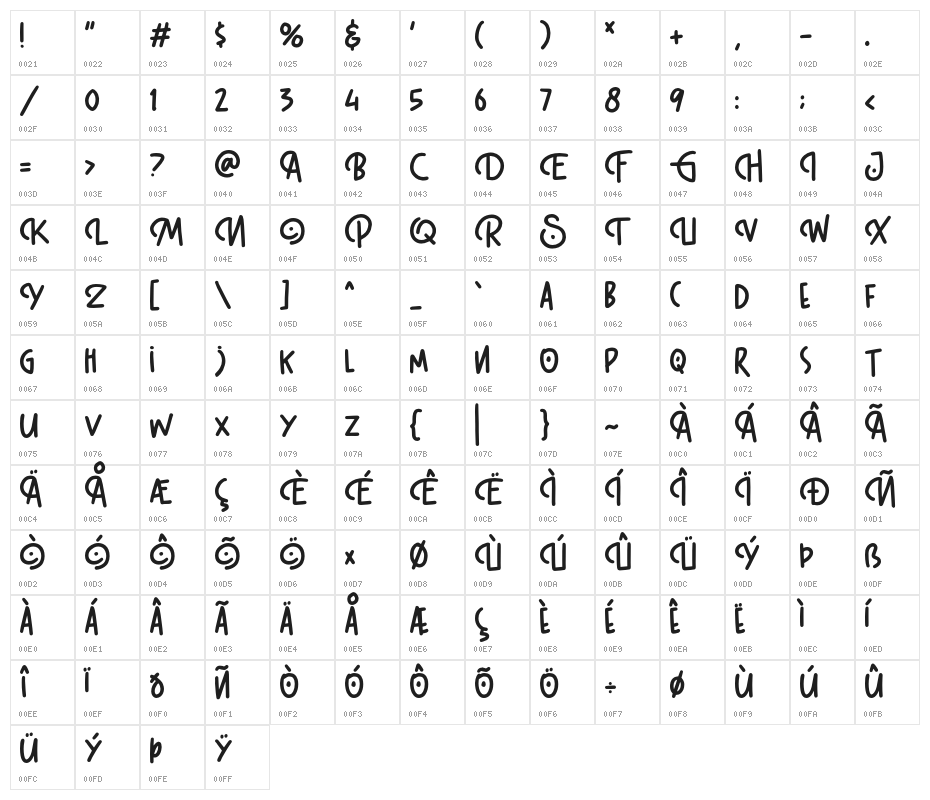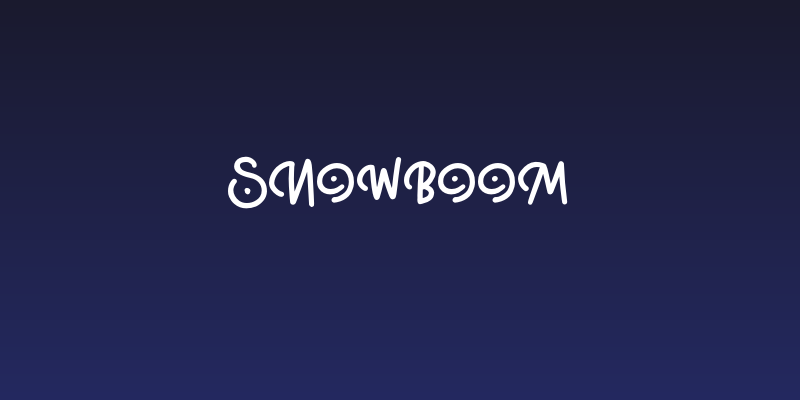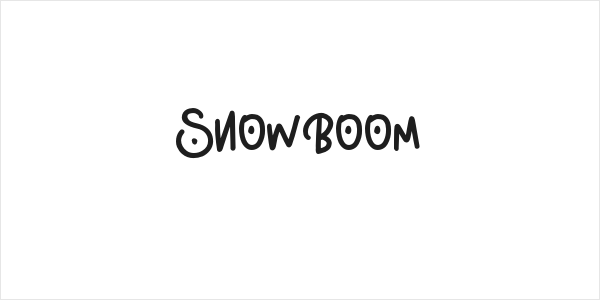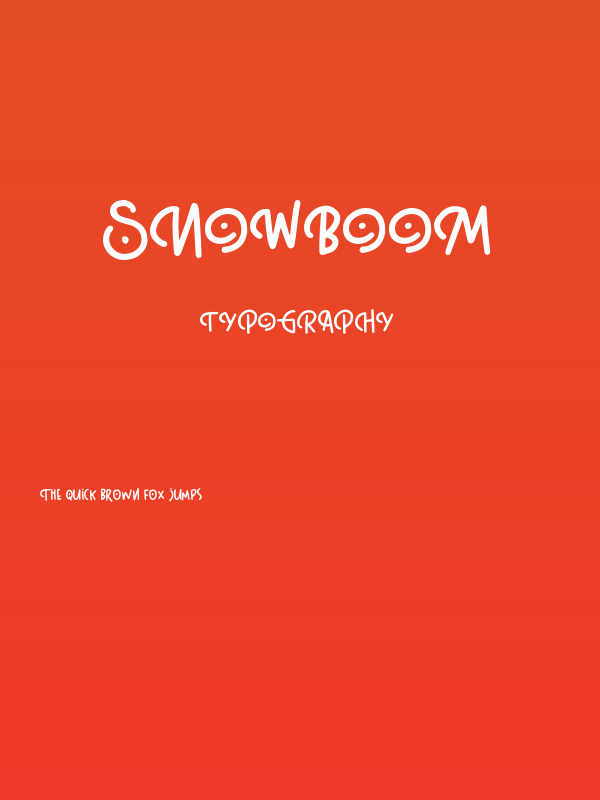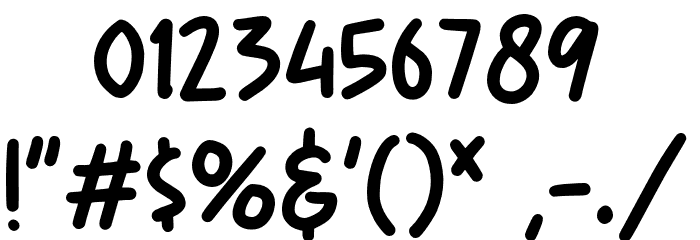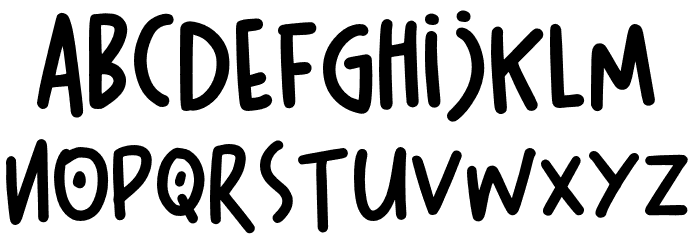
SnowBoom Font
SnowBoom Description
This playful and bold font features a whimsical style with rounded edges and a hand-drawn appearance. The uppercase letters are characterized by their unique and quirky shapes, while the lowercase letters maintain a consistent flow, adding to the font's charm. Numbers and special characters are designed to match the overall playful aesthetic, making them suitable for creative projects. The font's thick strokes and rounded forms give it a friendly and approachable feel, perfect for designs that aim to be inviting and fun.